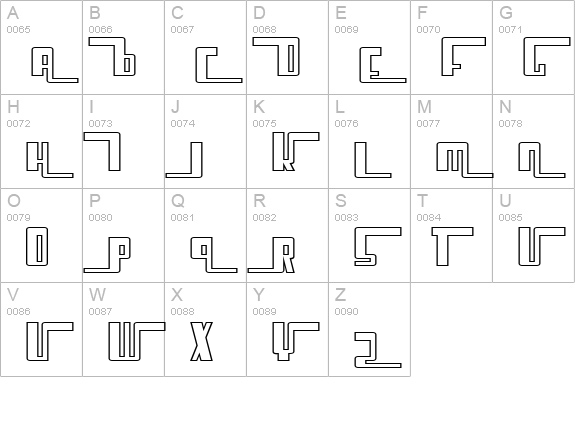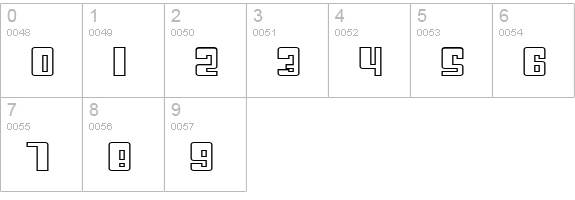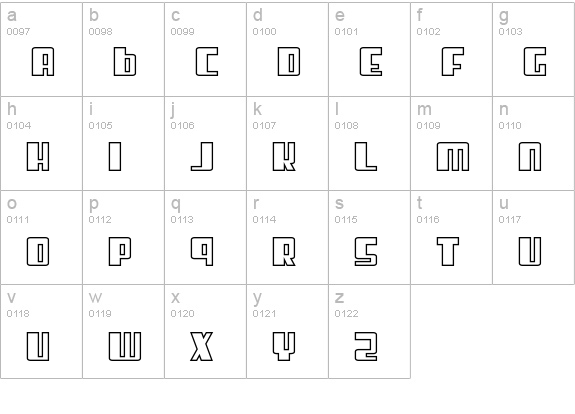
SF Cosmic Age Outine Upright Font Details
Introducing the breathtaking SF Cosmic Age Outine Upright font, a cosmic-inspired typeface that is sure to transport your designs to a whole new dimension. With its sleek and futuristic appeal, this font is perfect for adding a touch of otherworldly charm to your projects. SF Cosmic Age Outine Upright boasts clean lines and sharp angles, creating a sense of modernity and sophistication. Its unique design captures the essence of the cosmos, with each letter appearing as if it were carved out of stardust. This font is a true testament to the wonders of the universe, allowing your text to shine brightly among the stars. The versatility of SF Cosmic Age Outine Upright makes it suitable for a wide range of design purposes. Whether you're creating captivating headlines, eye-catching logos, or innovative branding materials, this font will effortlessly elevate your creations to the next level. Its bold presence demands attention and adds a touch of cosmic allure to any project. But what truly sets SF Cosmic Age Outine Upright apart is its accessibility. We believe that great design should be available to everyone, which is why we are offering this incredible font for free. That's right – you can freely download SF Cosmic Age Outine Upright at FontsMarket.com, granting you the freedom to explore the limitless possibilities of this extraordinary typeface. Unleash your creativity and embark on a cosmic journey with SF Cosmic Age Outine Upright. Elevate your designs to new heights, captivate your audience, and leave an everlasting impression. Download this remarkable font today and let the wonders of the cosmos inspire your next masterpiece.